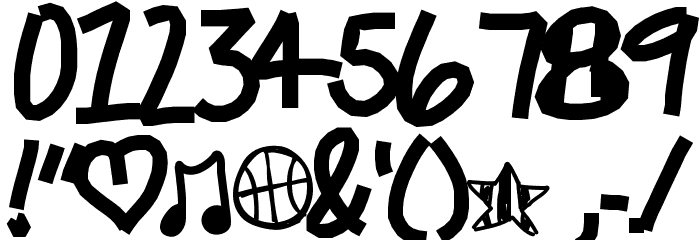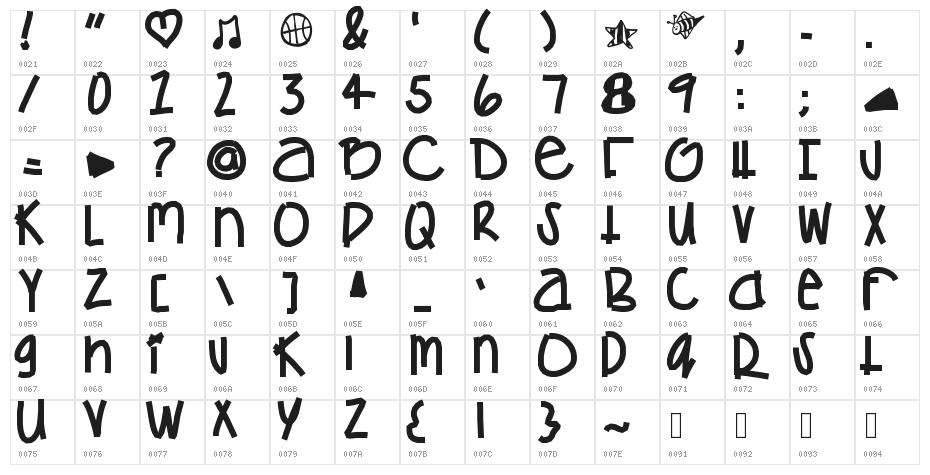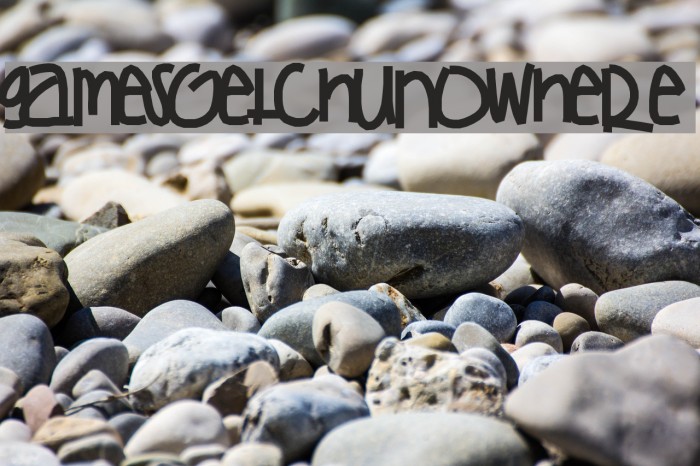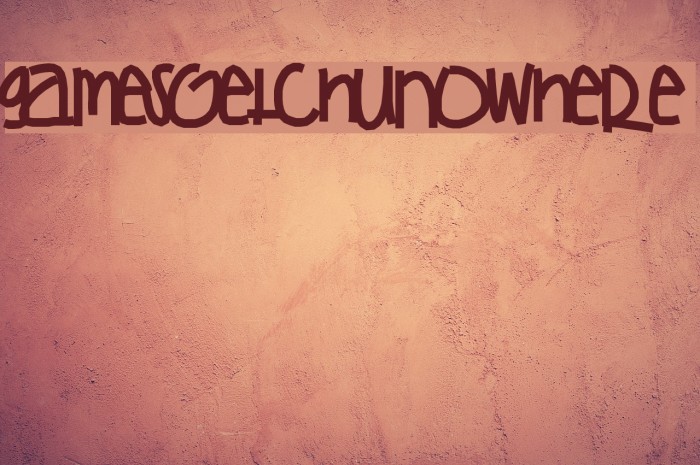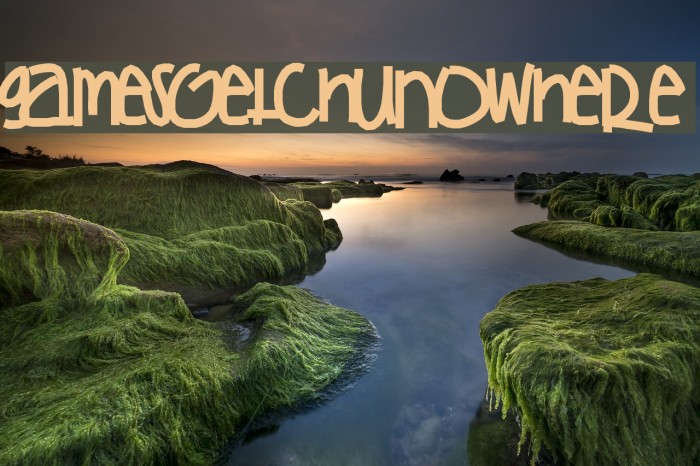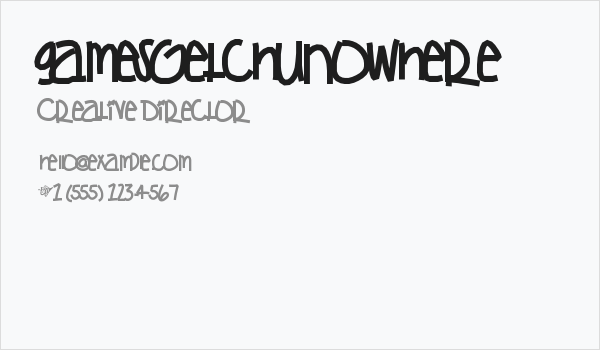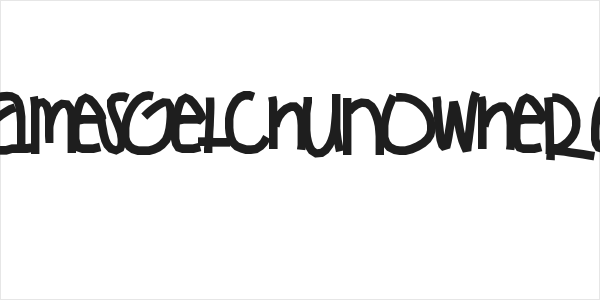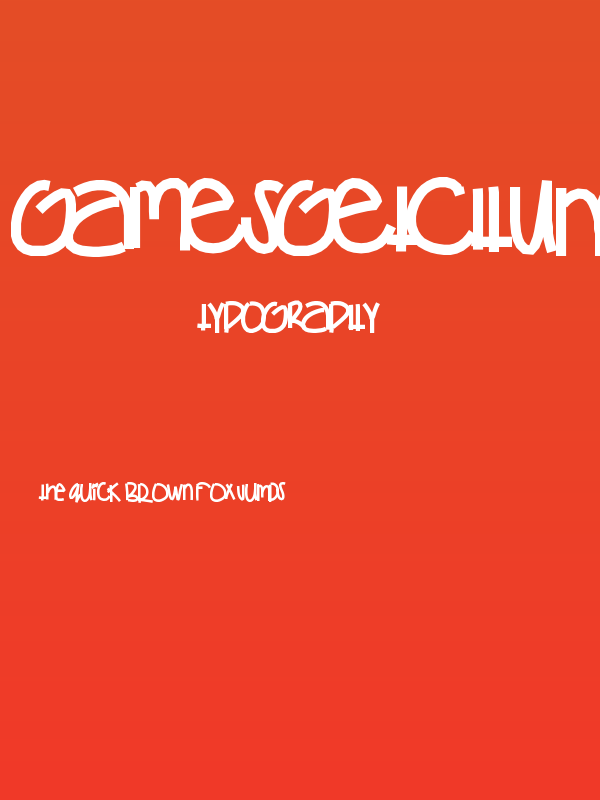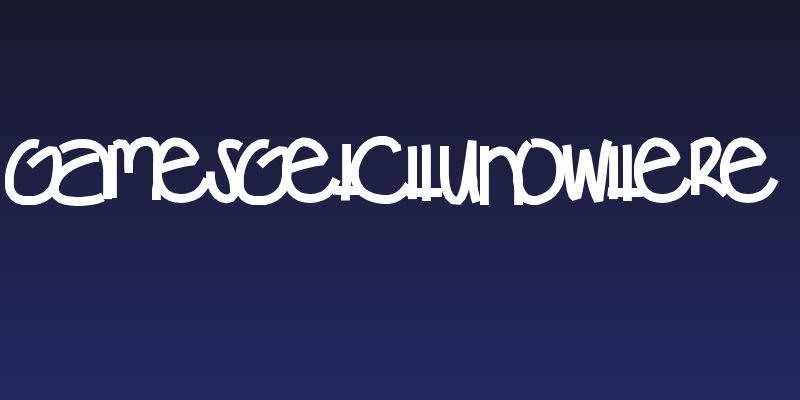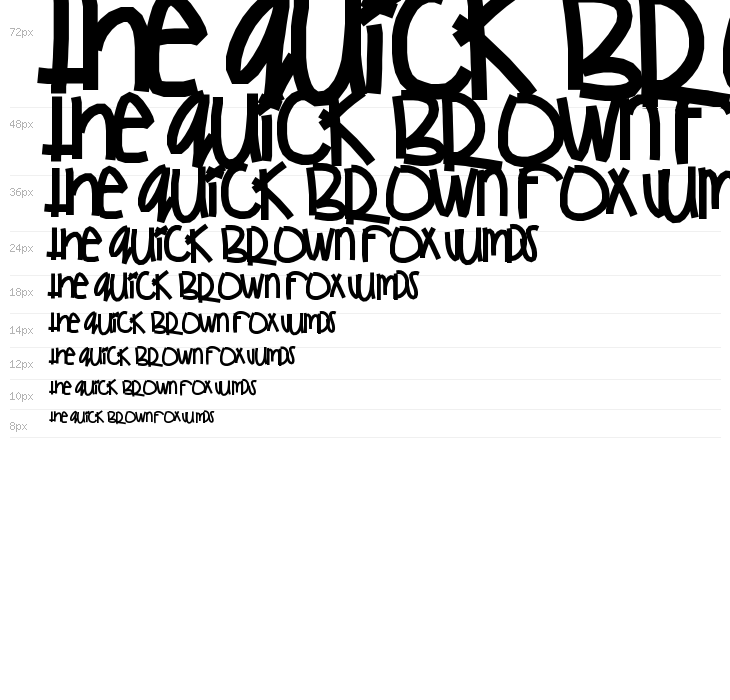
gamesGetchuNoWhere Font
gamesGetchuNoWhere Description
This font features a bold and playful style, characterized by its thick strokes and dynamic, energetic forms. The letters have a hand-drawn appearance, with a slightly irregular baseline that adds to its casual and informal vibe. The uppercase and lowercase letters maintain a consistent style, with rounded edges and a sense of movement. The numerals and special characters complement the alphabet with the same lively and bold design. This font is perfect for projects that require a fun and youthful touch, such as children's books, posters, or party invitations.
| Overall Style | Playful, Casual |
| Proposed Projects | Ideal for children's books, playful posters, party invitations, and casual branding. |